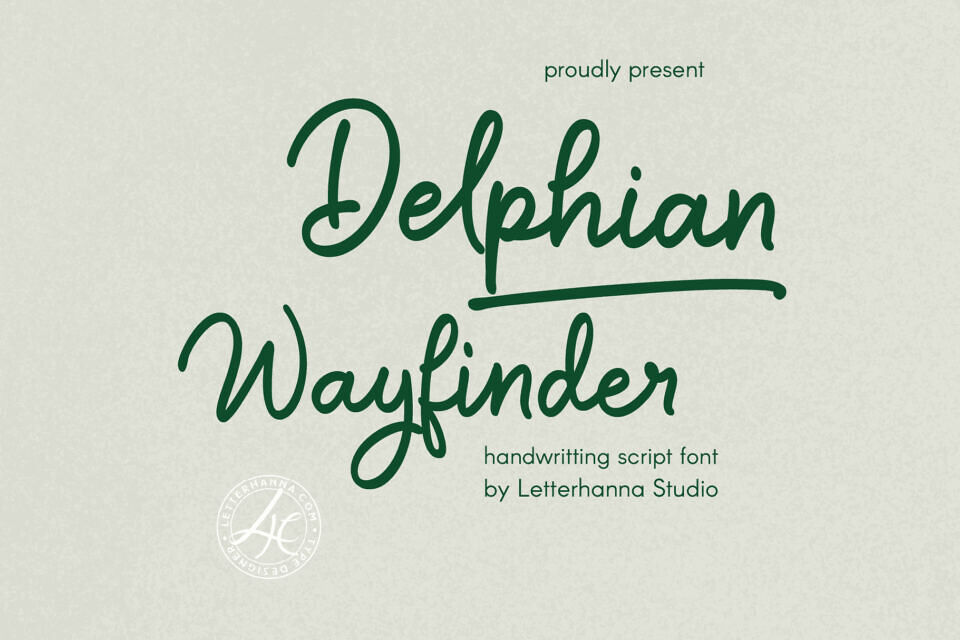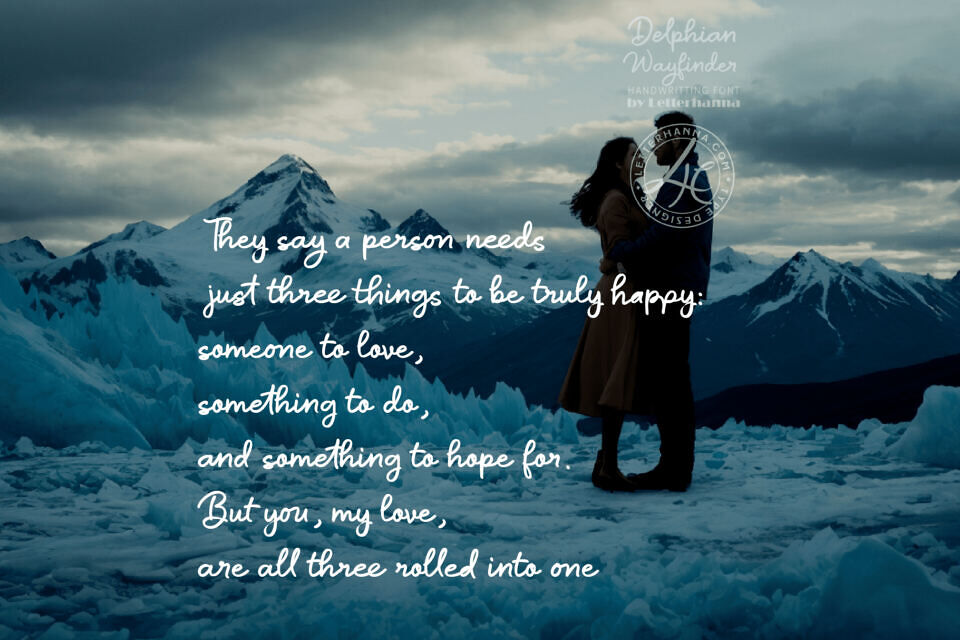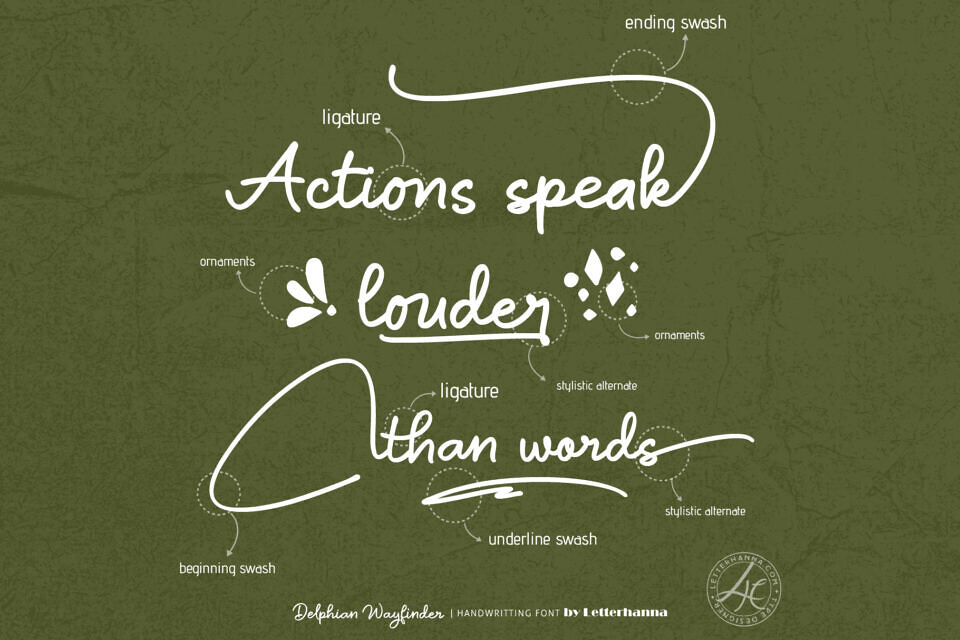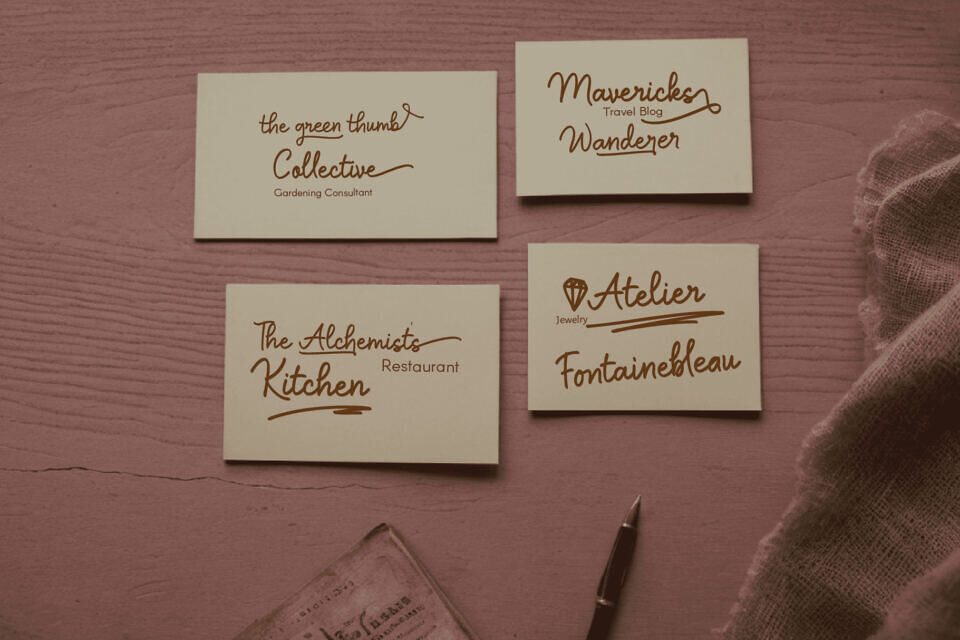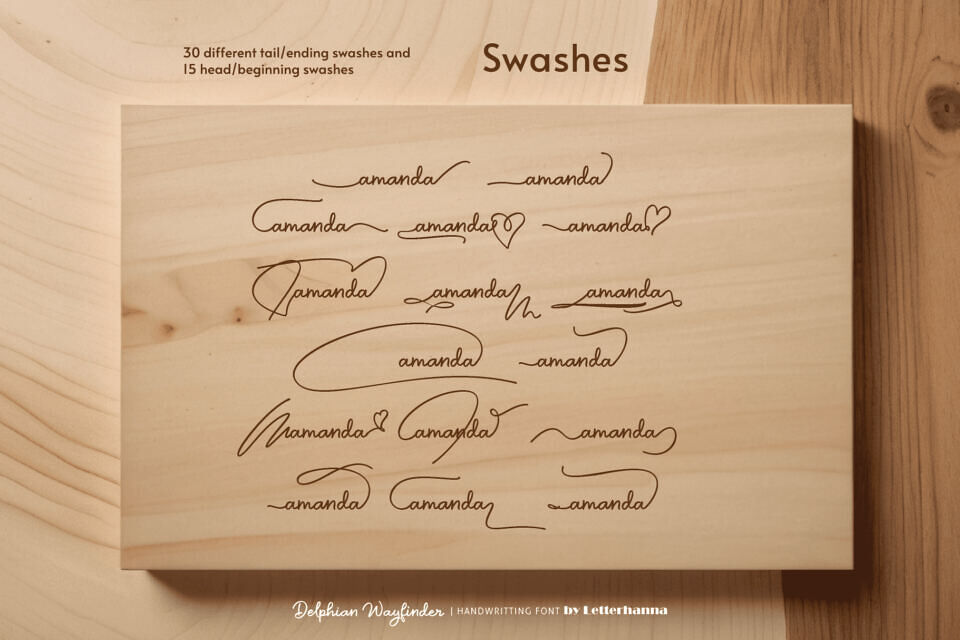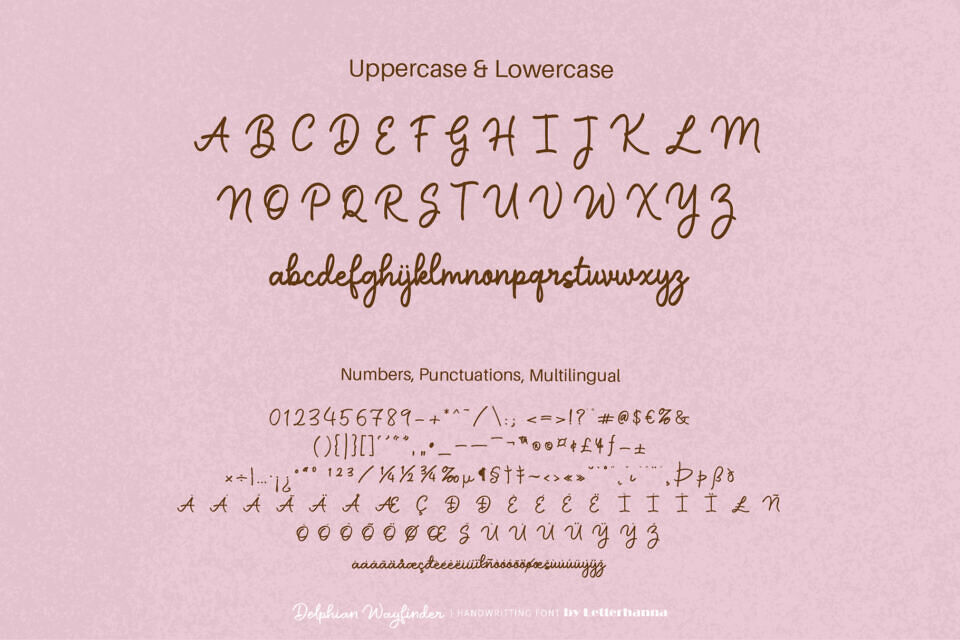
Introducing Delphian Wayfinder, a new typeface designed to guide your creative path. Inspired by the ancient oracle of Delphi, known for its wisdom and prophetic pronouncements, this font embodies clarity and direction. Delphian Wayfinder’s elegant curves and balanced structure evoke a sense of timeless knowledge, perfect for projects that demand both authority and approachability.
Whether you’re crafting captivating headlines, informative text, or impactful branding materials, Delphian Wayfinder will lead you to success. Navigate your design journey with confidence and clarity, letting this versatile font illuminate your message.